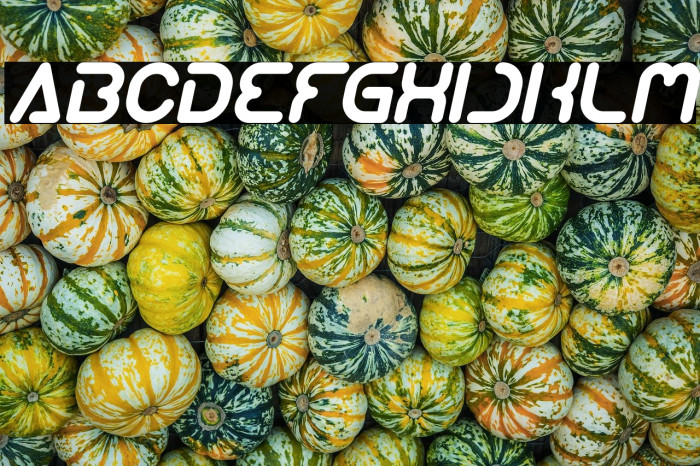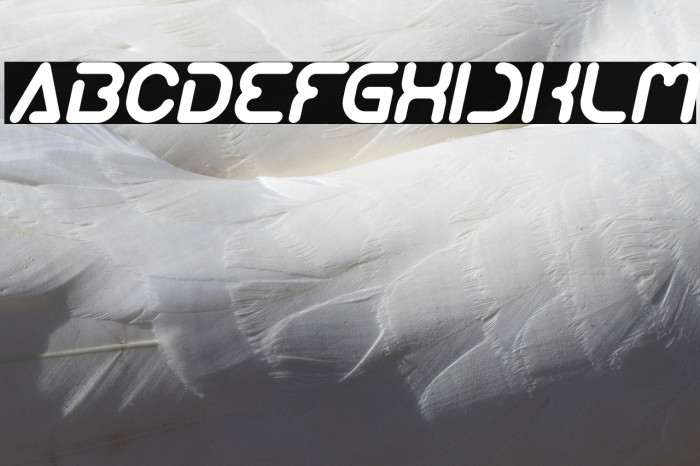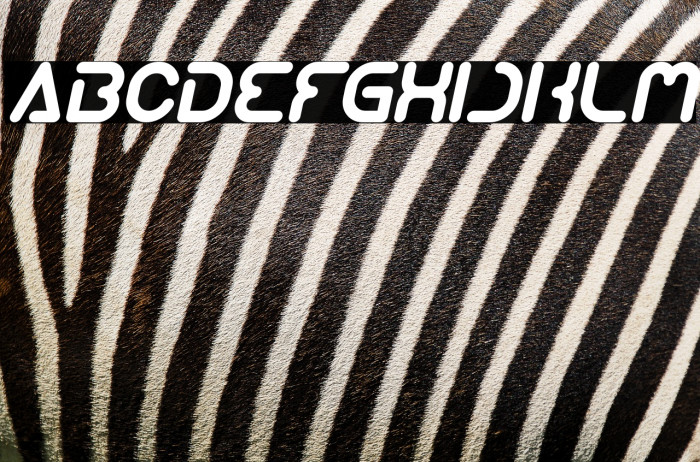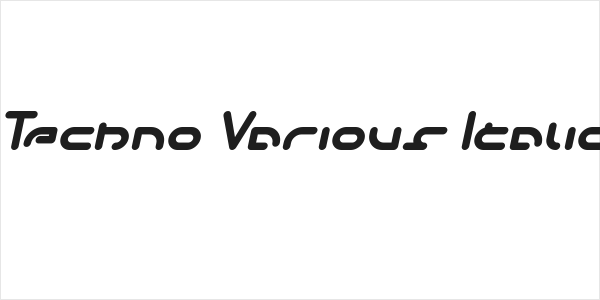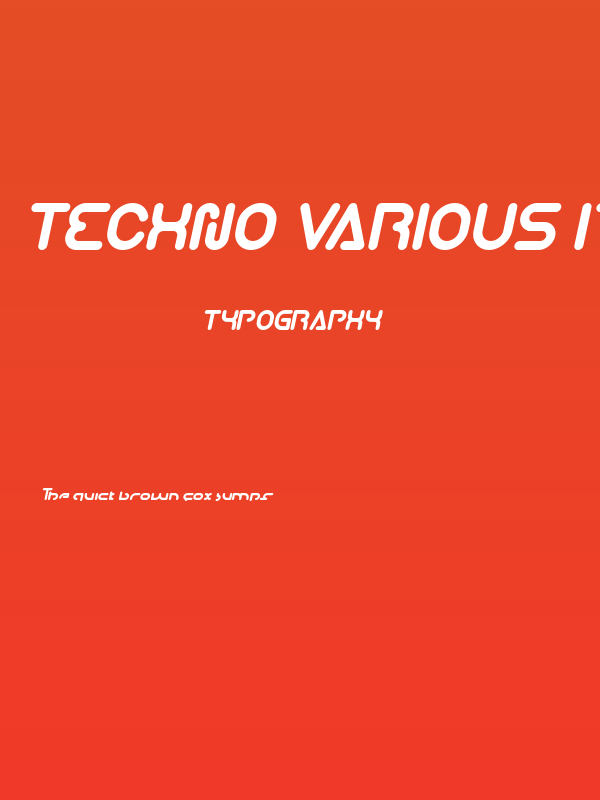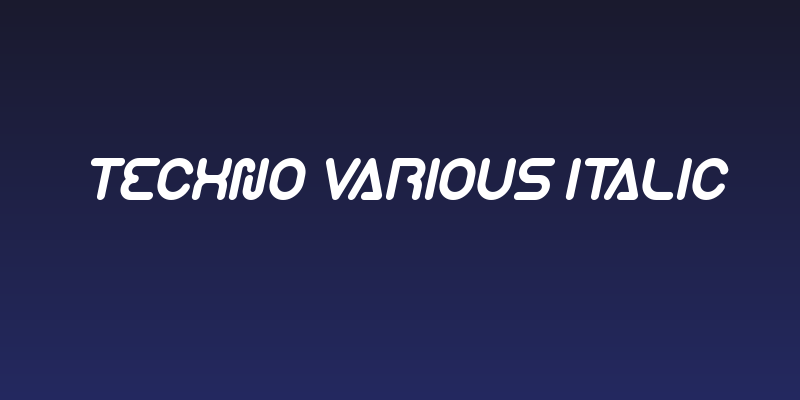
Techno Various Italic Font
Techno Various Italic Description
This font features a futuristic and dynamic design, characterized by its rounded edges and italicized form. The letters are bold and have a consistent stroke width, giving it a strong presence. The characters are slightly condensed, enhancing its modern and sleek appearance. The numbers and special characters follow the same stylistic cues, maintaining uniformity across the font. Its unique style makes it stand out, suitable for projects that require a tech-savvy or avant-garde aesthetic.